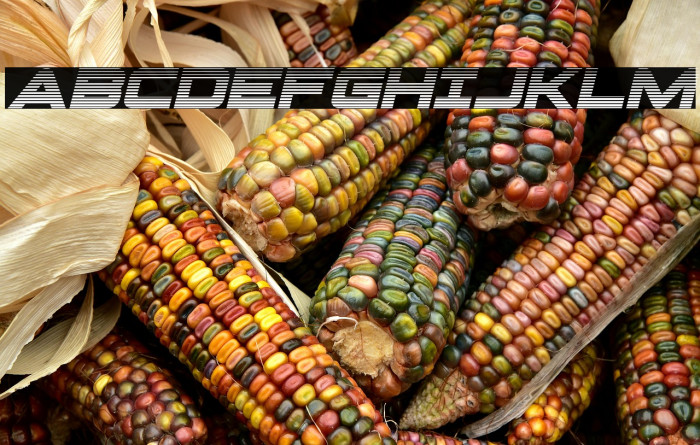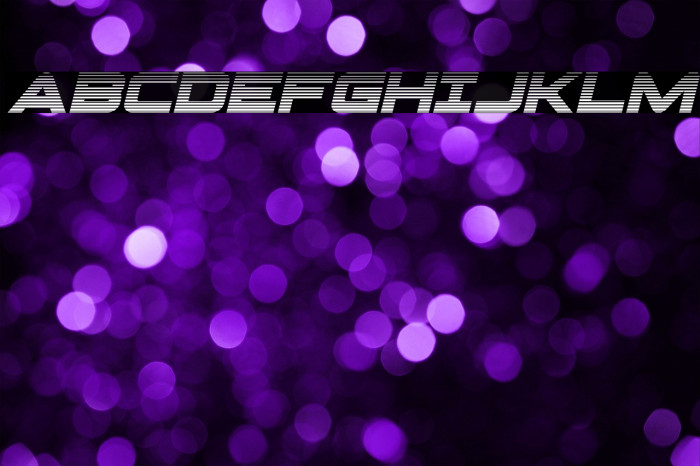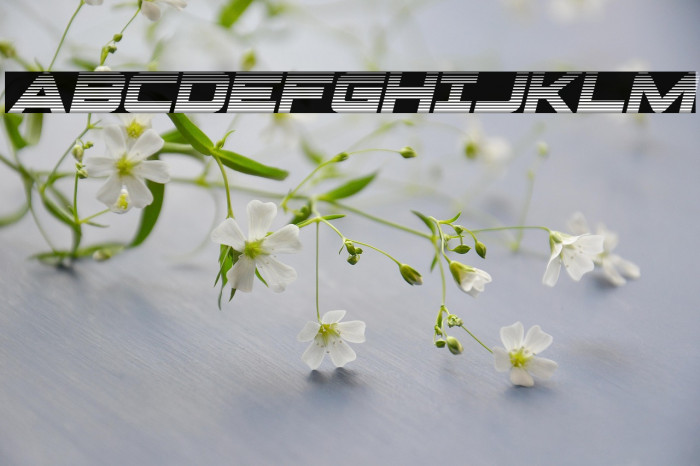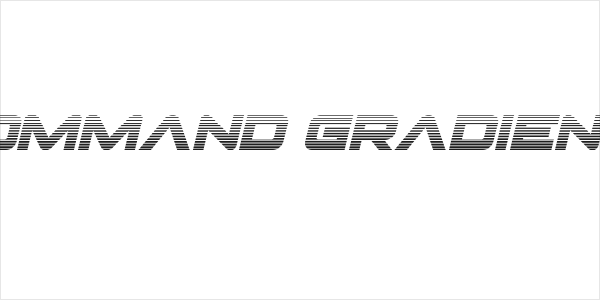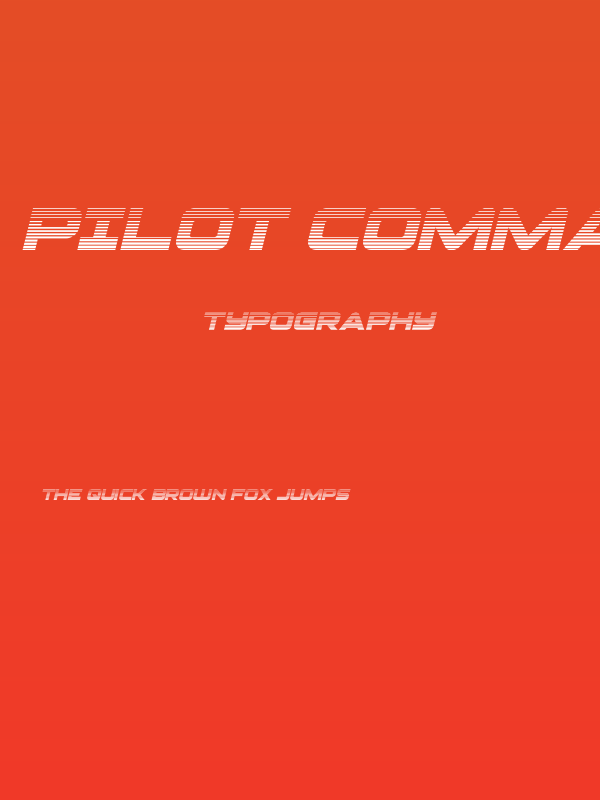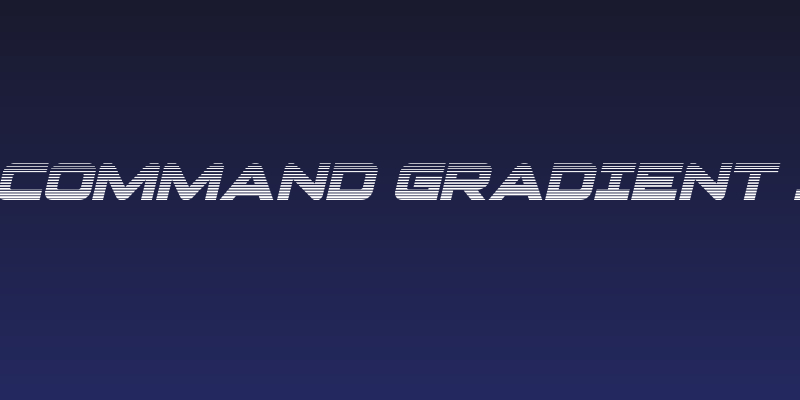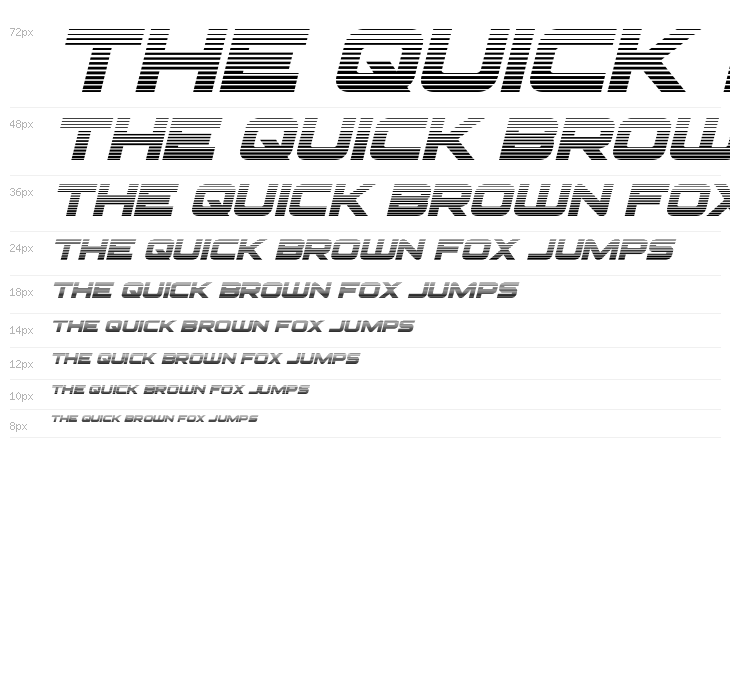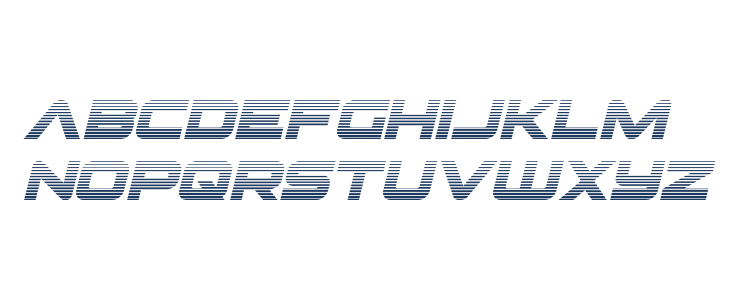
Pilot Command Gradient Italic Font
Pilot Command Gradient Italic Description
This font features a dynamic and futuristic design, characterized by its italicized, slanted letters that convey a sense of motion and speed. The characters are composed of multiple horizontal lines, creating a gradient effect that adds depth and dimension. This unique style gives the font a modern, tech-inspired look, making it suitable for projects that require a bold and innovative aesthetic. The uppercase and lowercase letters, along with numbers and special characters, maintain a consistent design, ensuring versatility across various applications.
| Proposed Projects | Ideal for technology branding, sci-fi movie posters, video game titles, and modern advertising campaigns. |